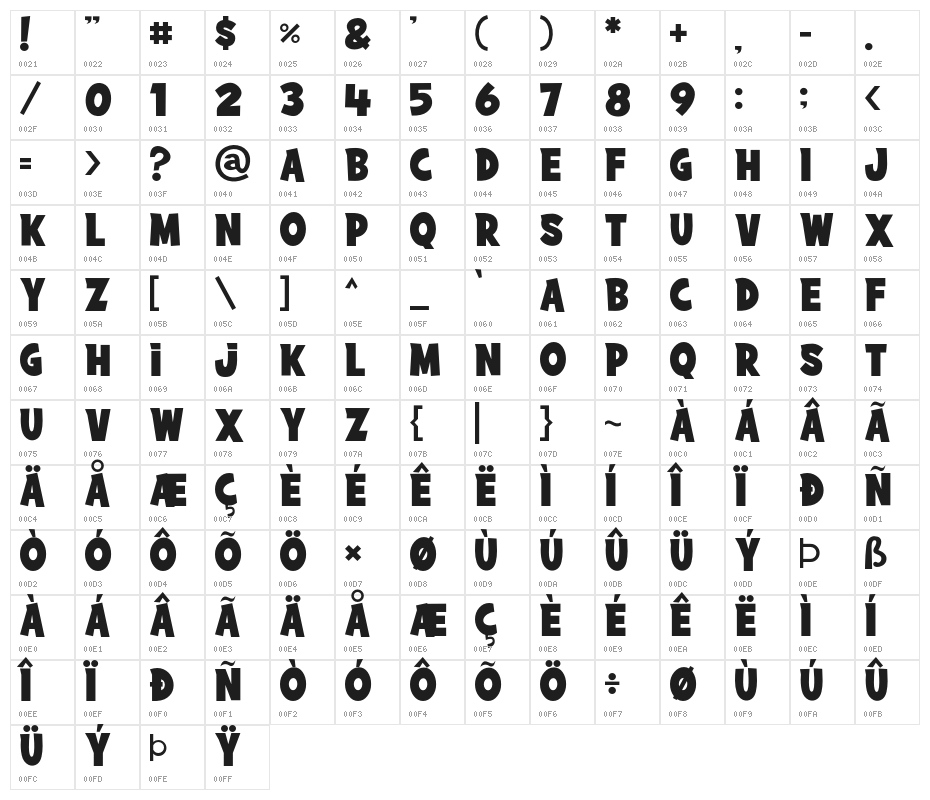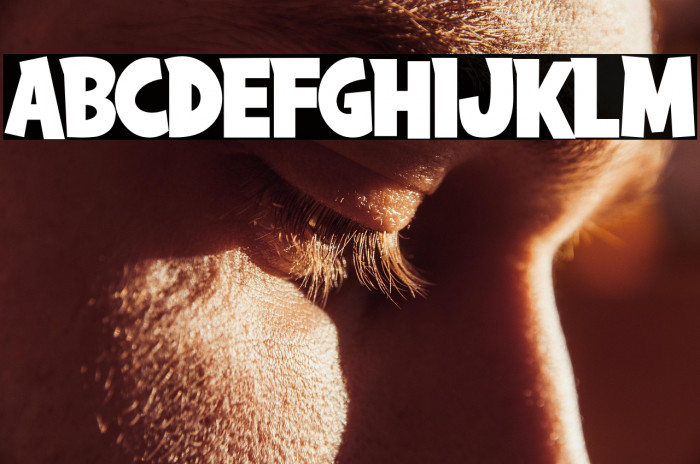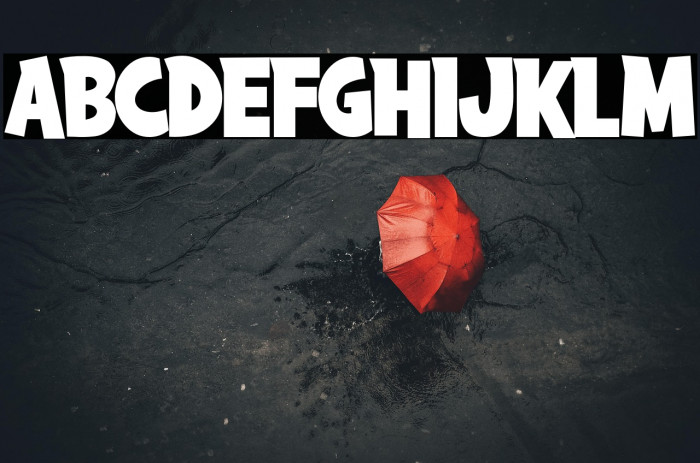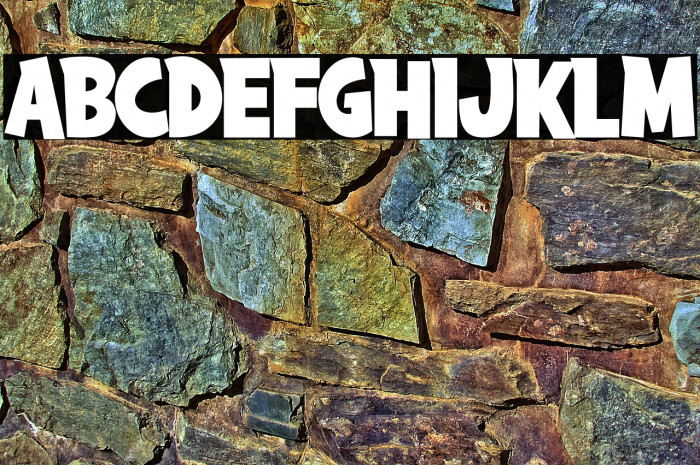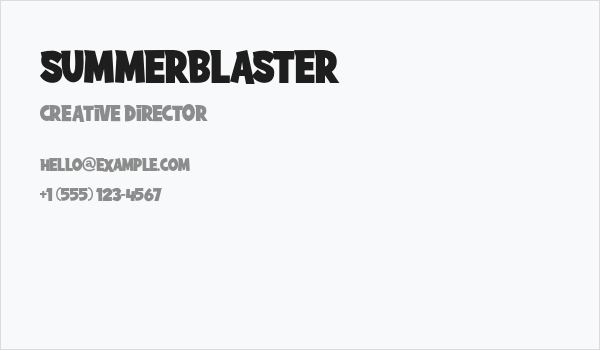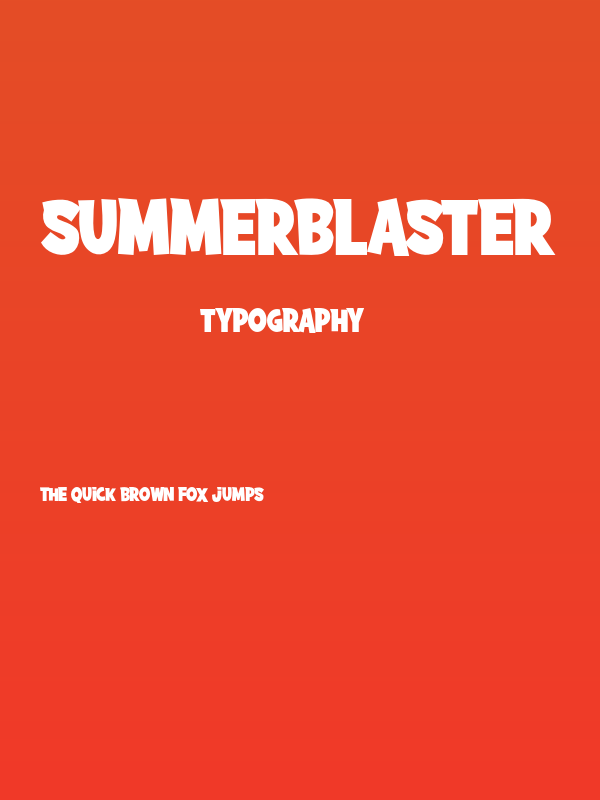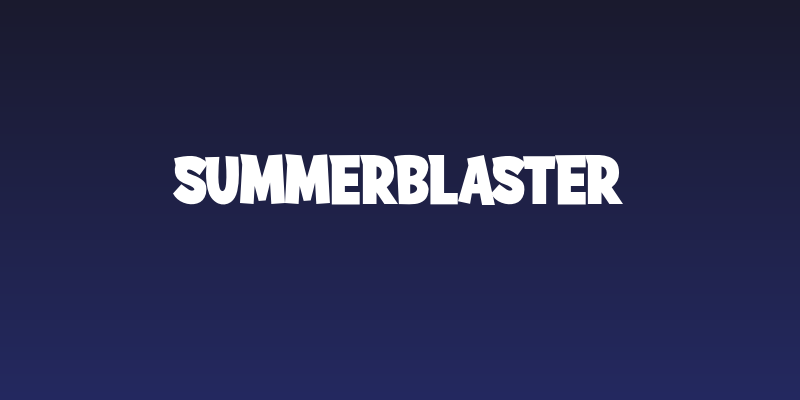
SummerBlaster Font
SummerBlaster Description
This bold and playful font features thick, heavy strokes with a slightly irregular and dynamic shape, giving it a lively and energetic appearance. The characters are robust and wide, with a strong presence that commands attention. The uppercase letters are particularly striking, with a slightly condensed form that enhances their impact. The numerals and special characters maintain the same boldness and playful style, ensuring consistency across all glyphs. This font is ideal for projects that require a fun and engaging visual element.
Overall StylePlayful, Energetic
Use CaseHeadlines, Posters, Branding
Proposed ProjectsPerfect for children's books, posters, event flyers, and branding that requires a fun and energetic vibe.